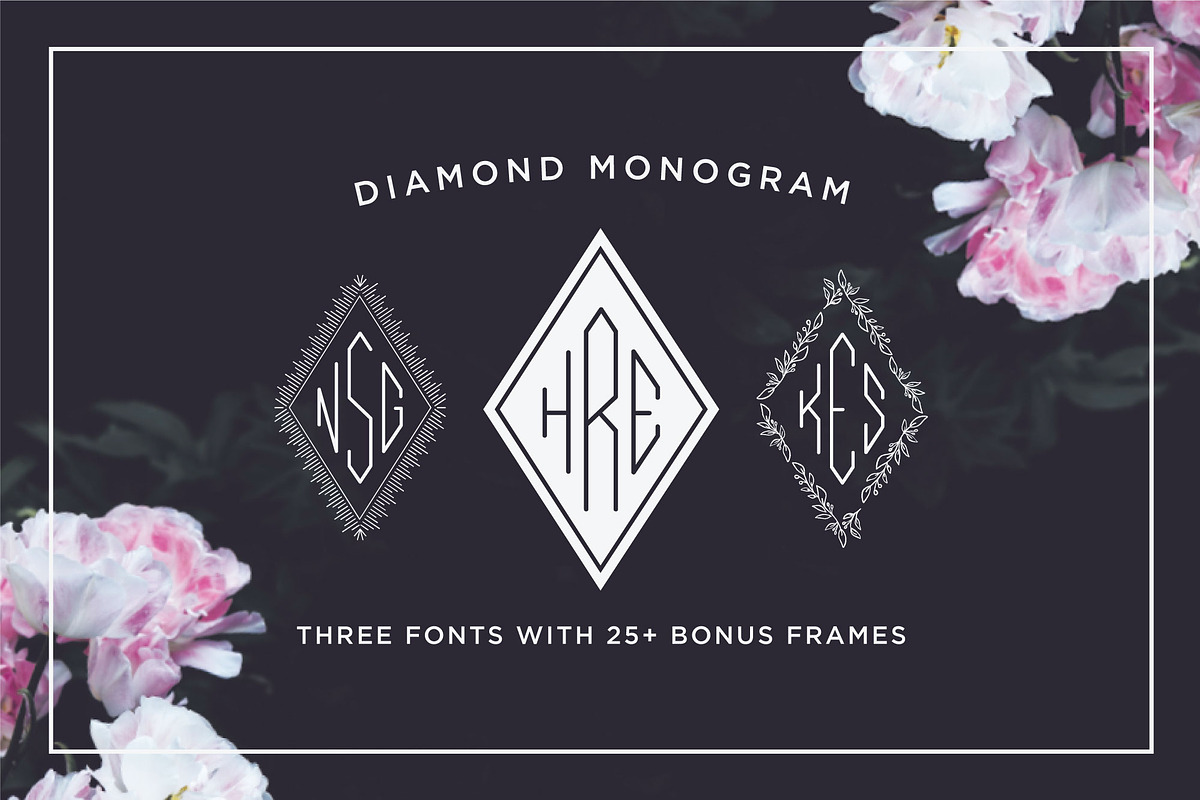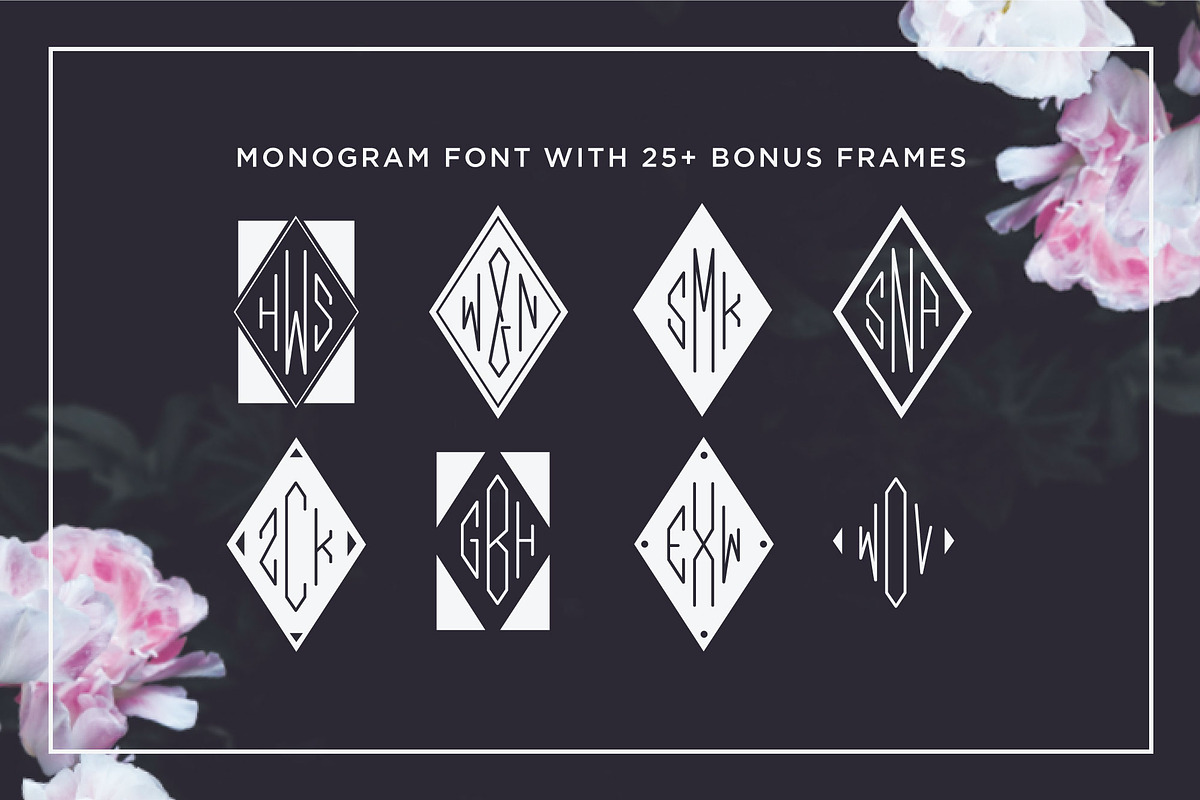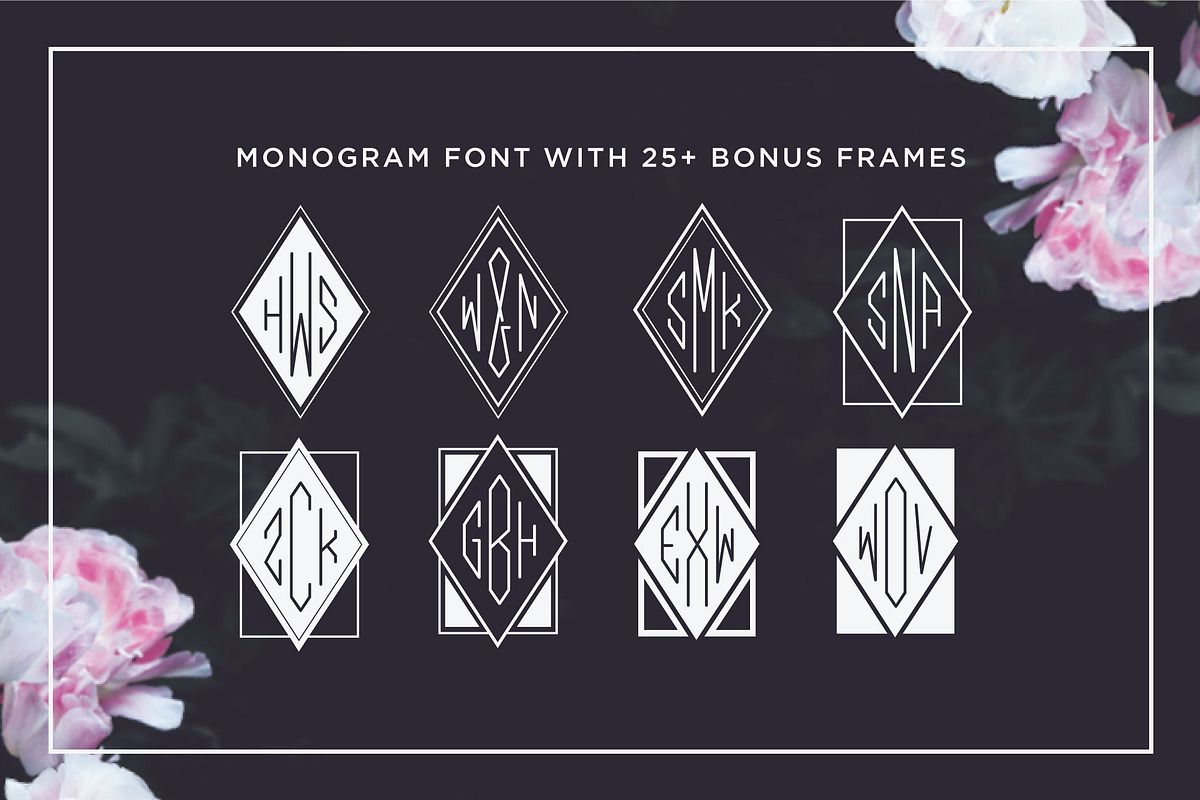
Diamond Monogram Font
Make gorgeous three letter diamond monograms quickly and easily in any program.
DIAMOND MONOGRAM is a trendy monogram set suitable for wedding invitations, branding, stationery, blog design, custom art, custom stamps, custom embossers, or any design purpose.